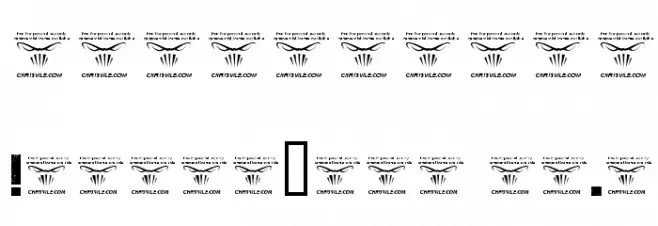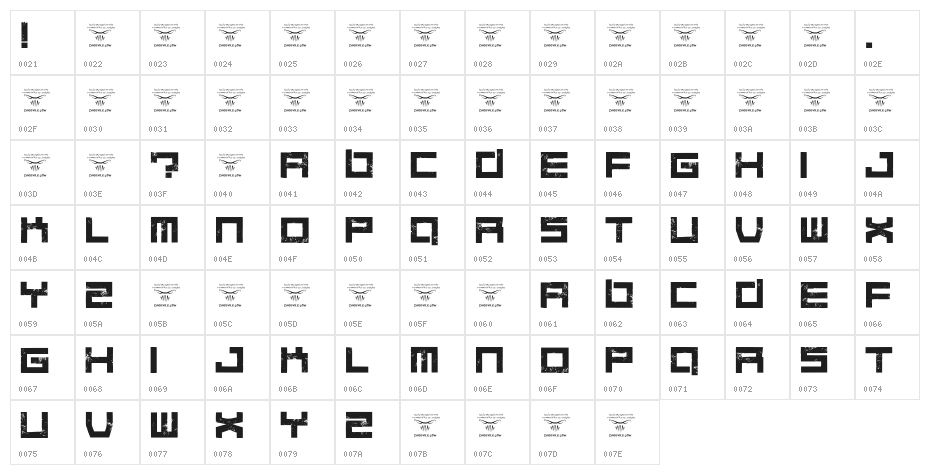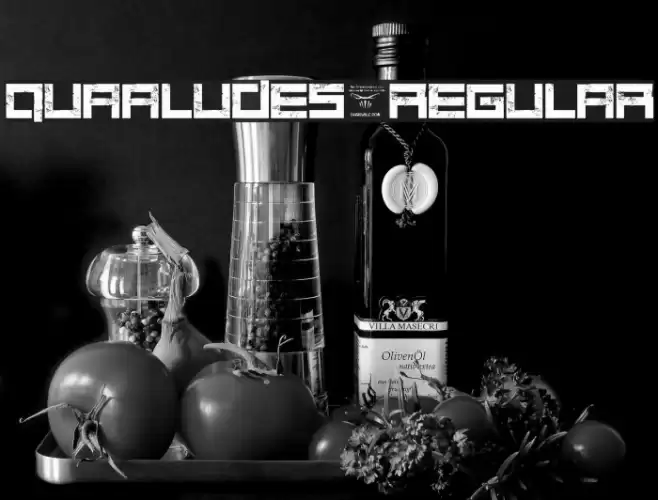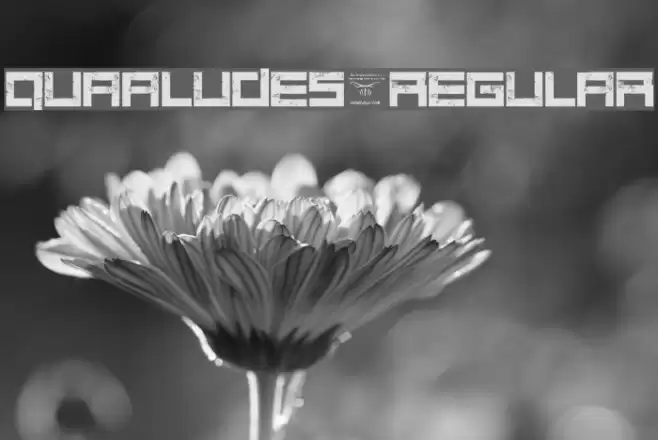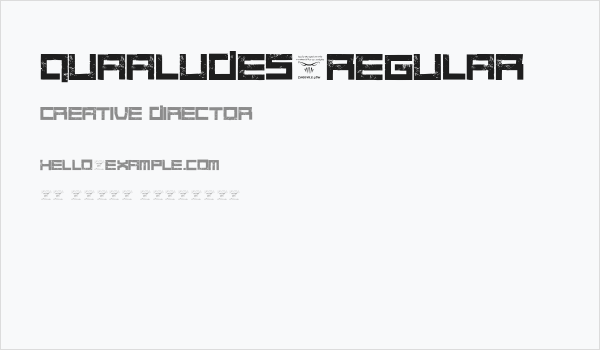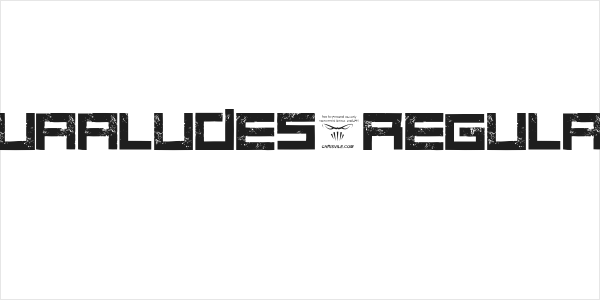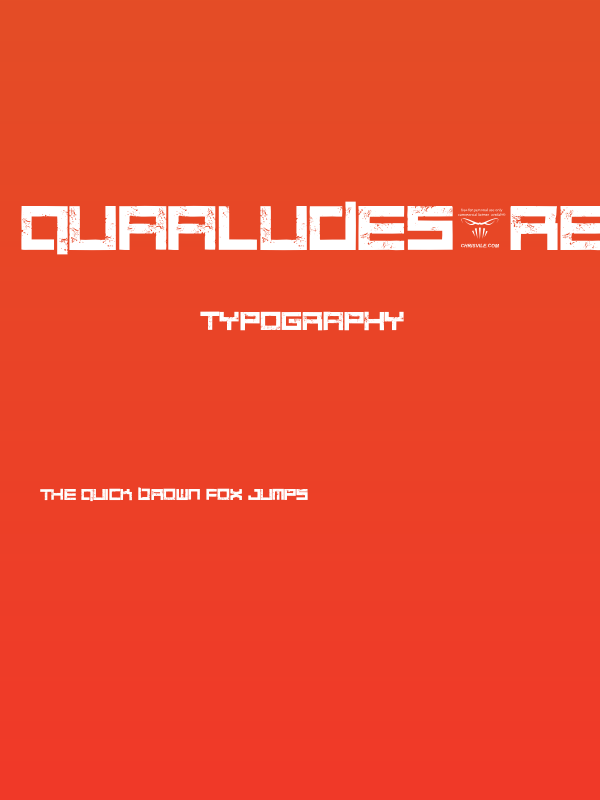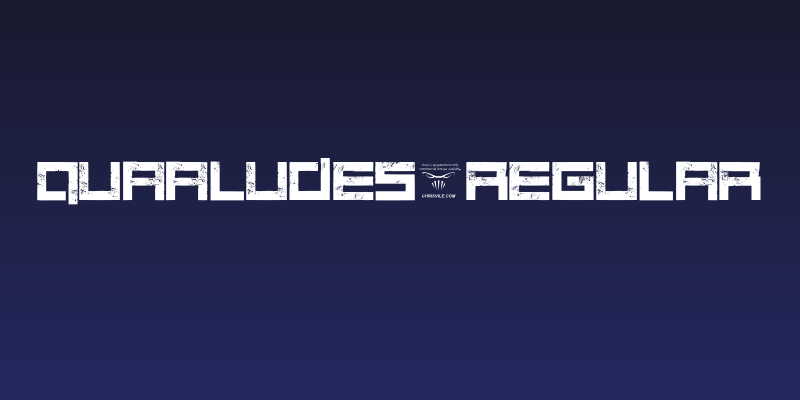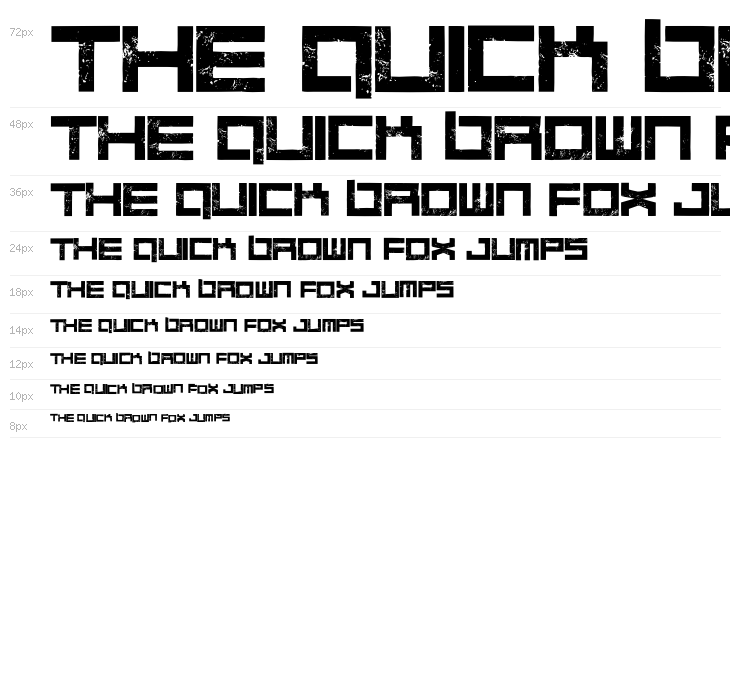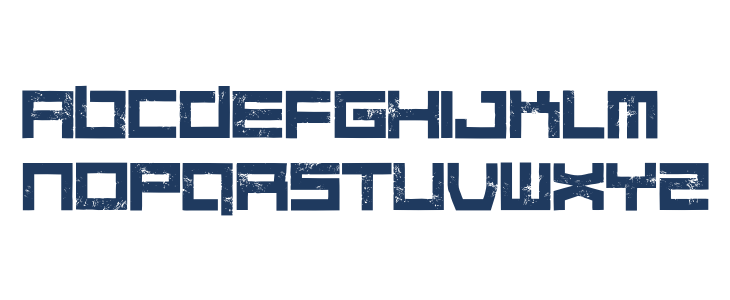
Quaaludes-Regular Font
Quaaludes-Regular Description
This font features a bold, distressed style with a modern, industrial feel. The characters are blocky and geometric, with a rough texture that gives them a worn, gritty appearance. The uppercase letters are uniform in height, creating a cohesive look, while the lowercase letters maintain the same rugged aesthetic. The numbers and special characters follow the same design principles, ensuring consistency across all elements. This font's unique style makes it stand out, perfect for projects that require a bold statement.
| Proposed Projects | Ideal for posters, album covers, video game graphics, and urban-themed branding. |